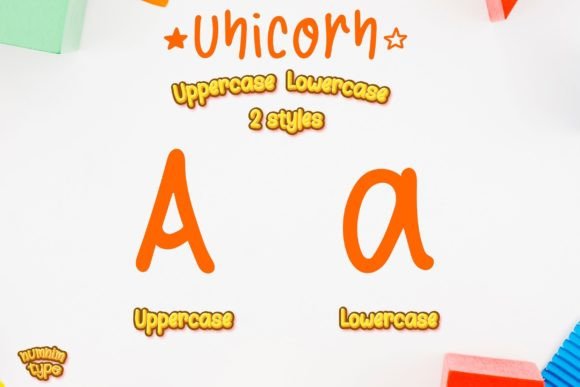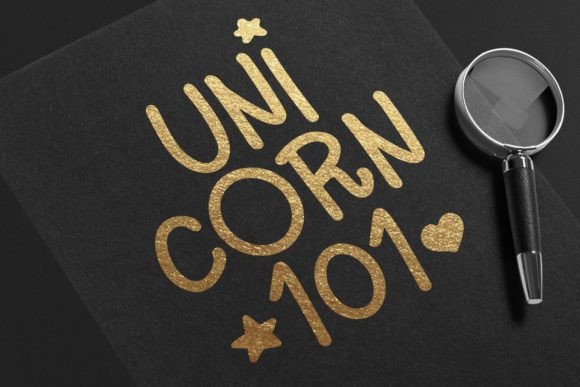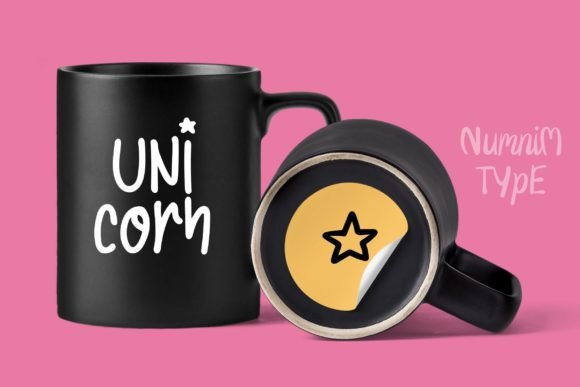
About Unicorn Font
Unicorn is a delightful and uniquely crafted handwritten font designed to bring a cute and playful touch to your projects. With its fun and whimsical characters, Unicorn is the perfect font for various applications, including stickers, mugs, T-shirts, ornaments, summer event cards, and more. The font’s PUA encoding ensures easy access to all glyphs and swashes, providing you with creative freedom and customization options.
The cuteness of Unicorn shines through its playful characters, making it an excellent choice for designs that aim to convey a lighthearted and joyful atmosphere. Whether you’re creating products like stickers and mugs or designing event cards for summer festivities, Unicorn adds a charming and unique flair.
The versatility of Unicorn allows it to adapt to a wide range of creative projects. Its handwritten and playful style makes it suitable for various applications, adding a touch of fun and personality. Whether used on merchandise or promotional materials, Unicorn brings a sense of whimsy to your designs.
Incorporate Unicorn into your design toolbox and let its cute and uniquely crafted characters inspire your creativity. Whether you’re working on T-shirts, ornaments, or any project that calls for a playful handwritten font, Unicorn adds a touch of magic and charm to your designs. Let Unicorn be the font that brings joy and uniqueness to your creative endeavors.